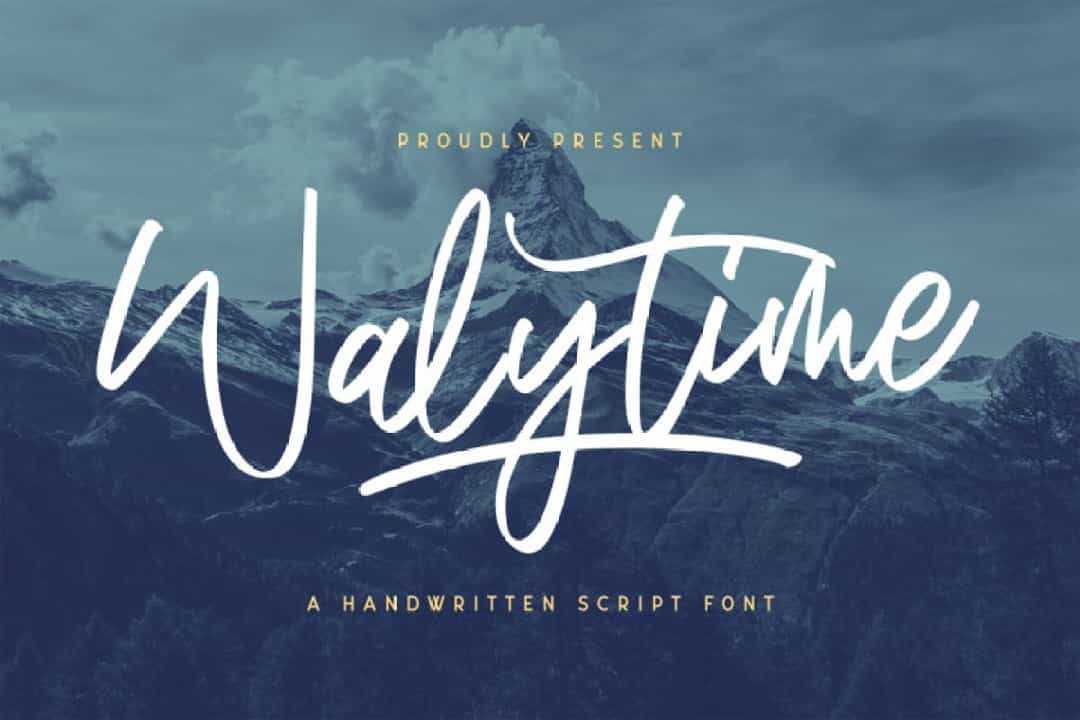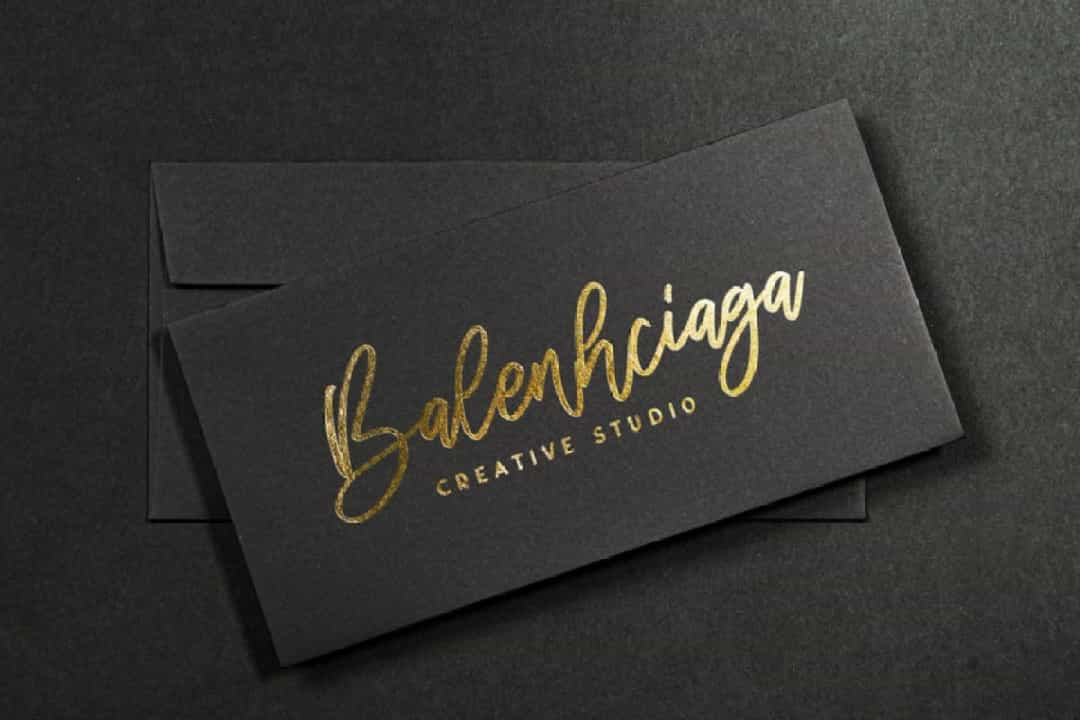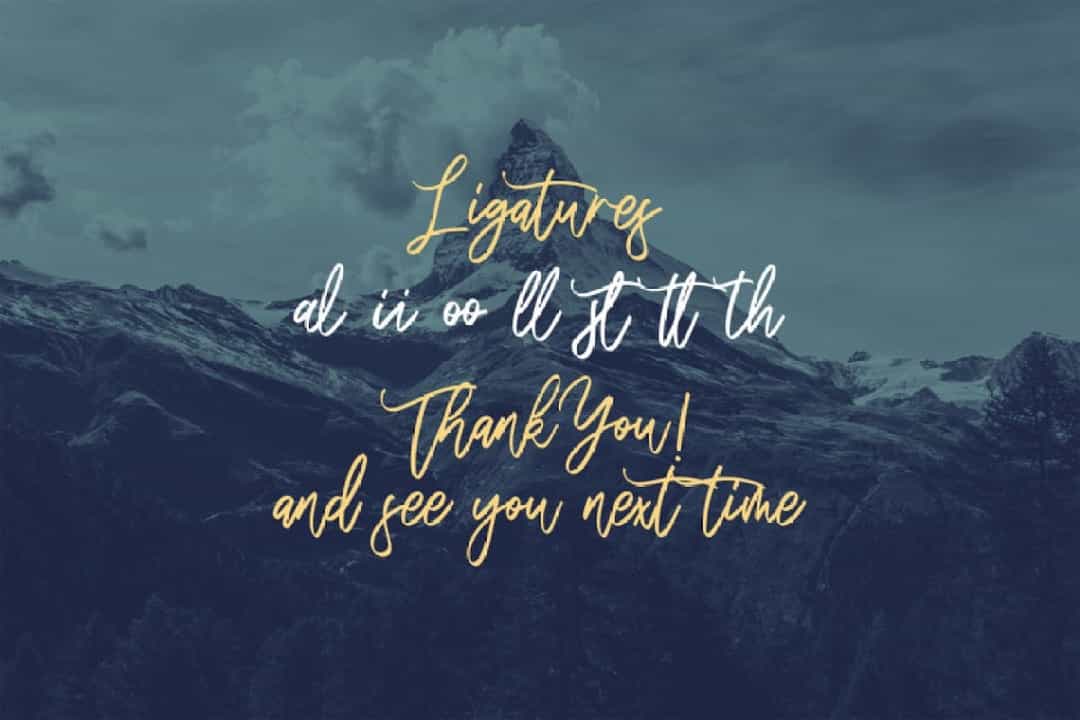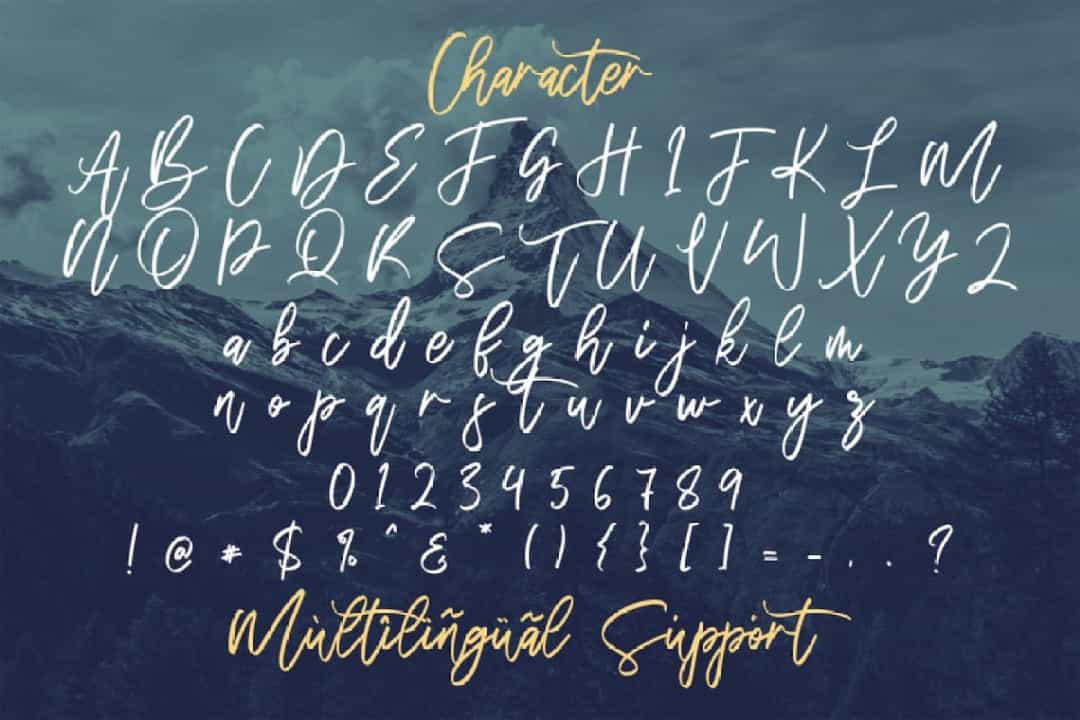
Walytime Font can be described as modern and contemporary with lots of curves and personality. It was created to produce an authentic handwritten appearance digitally. This font can be used for invitations, quotes, wedding stationery designs, logos, album covers, business cards, clothes, magazines posters etc as it supports multiple languages! Furthermore it supports multilingual support.